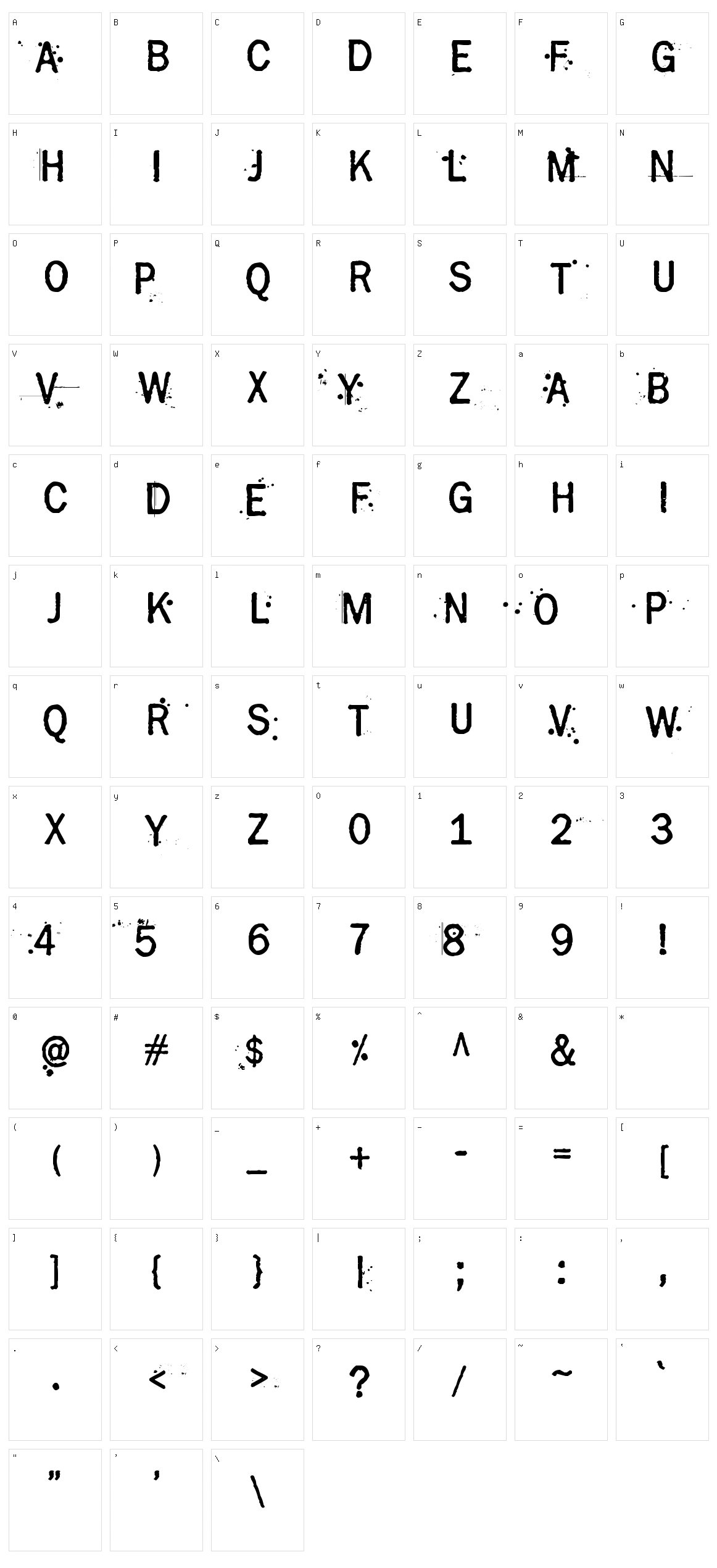
The free font Grasshopper Z is carefully designed by junkohanhero, showcasing a thoughtful balance of creativity and usability and falls under the Eroded font style. When you download the ZIP file, it contains only 419.43 KB of font files, making it lightweight and quick to download. Please review the license details below to understand permitted usage and distribution rights. If license information is not available, we recommend using this font for personal projects only or contacting the author directly for commercial usage permissions.